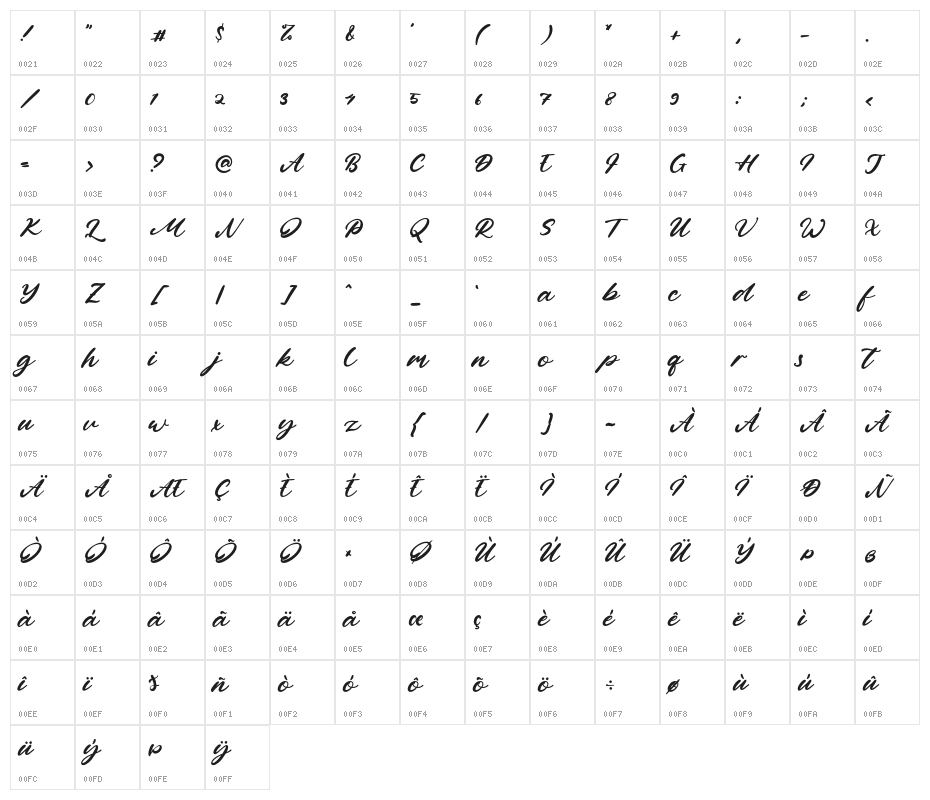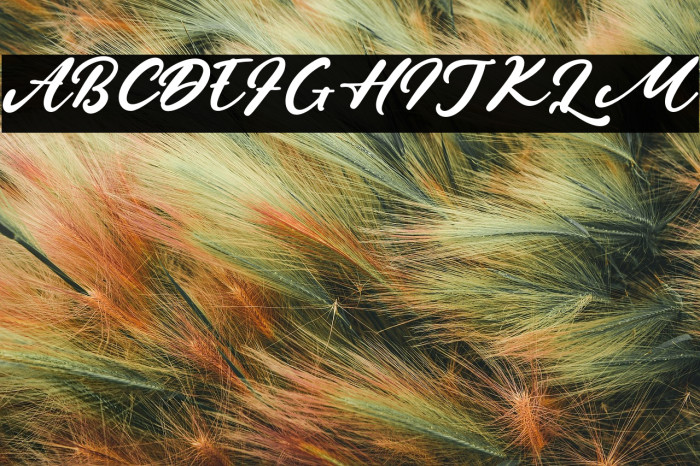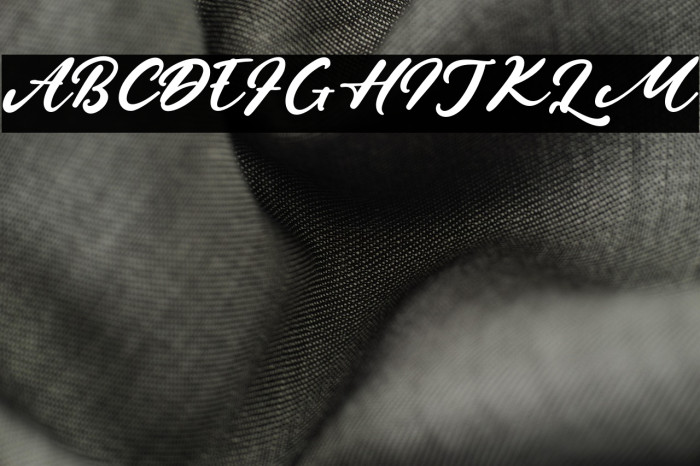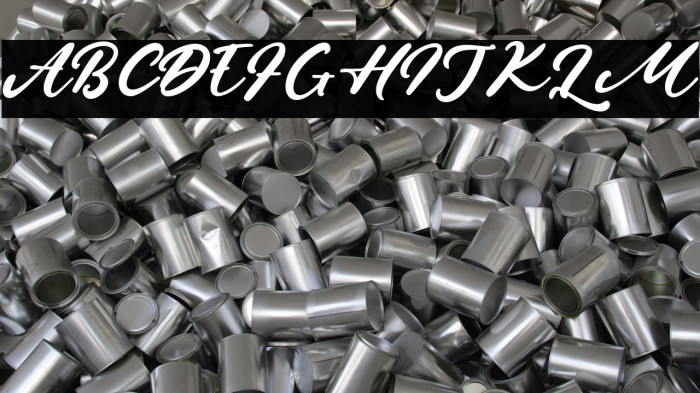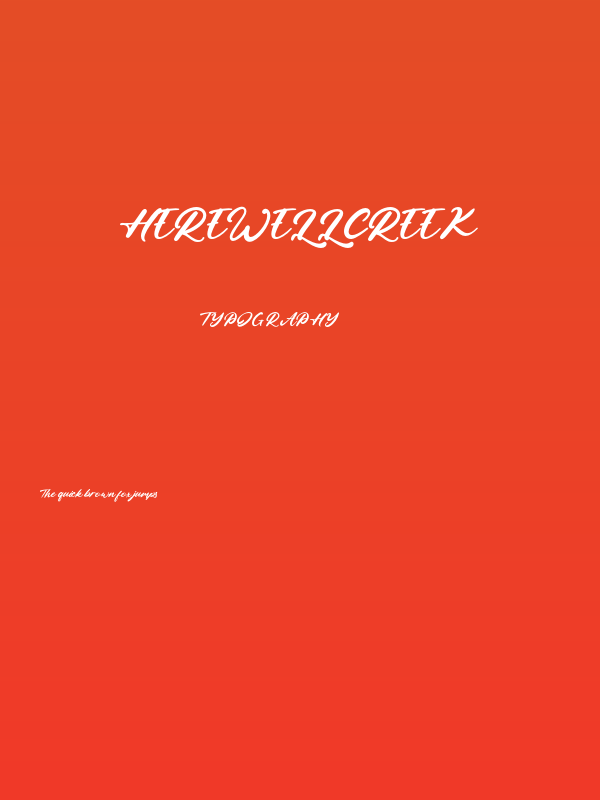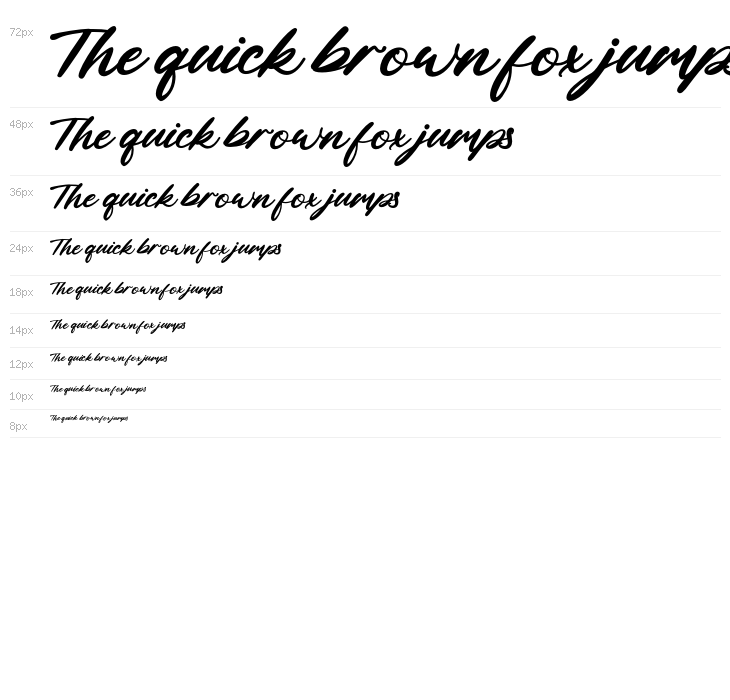
HerewellCreek Font
HerewellCreek Description
This font exudes a classic and elegant script style, characterized by its flowing, cursive letterforms that mimic the fluidity of handwriting. The uppercase letters are bold and slightly slanted, adding a sense of movement and grace. The lowercase letters maintain a consistent slant, with smooth connections between each character, enhancing readability while preserving the artistic flair. The numerals are distinct and clear, matching the overall style with a slight slant. Special characters are well-integrated, maintaining the script's aesthetic. This font is ideal for projects that require a touch of sophistication and personal touch, such as invitations, greeting cards, and branding materials.
| Proposed Projects | Ideal for wedding invitations, greeting cards, branding, and elegant signage. |